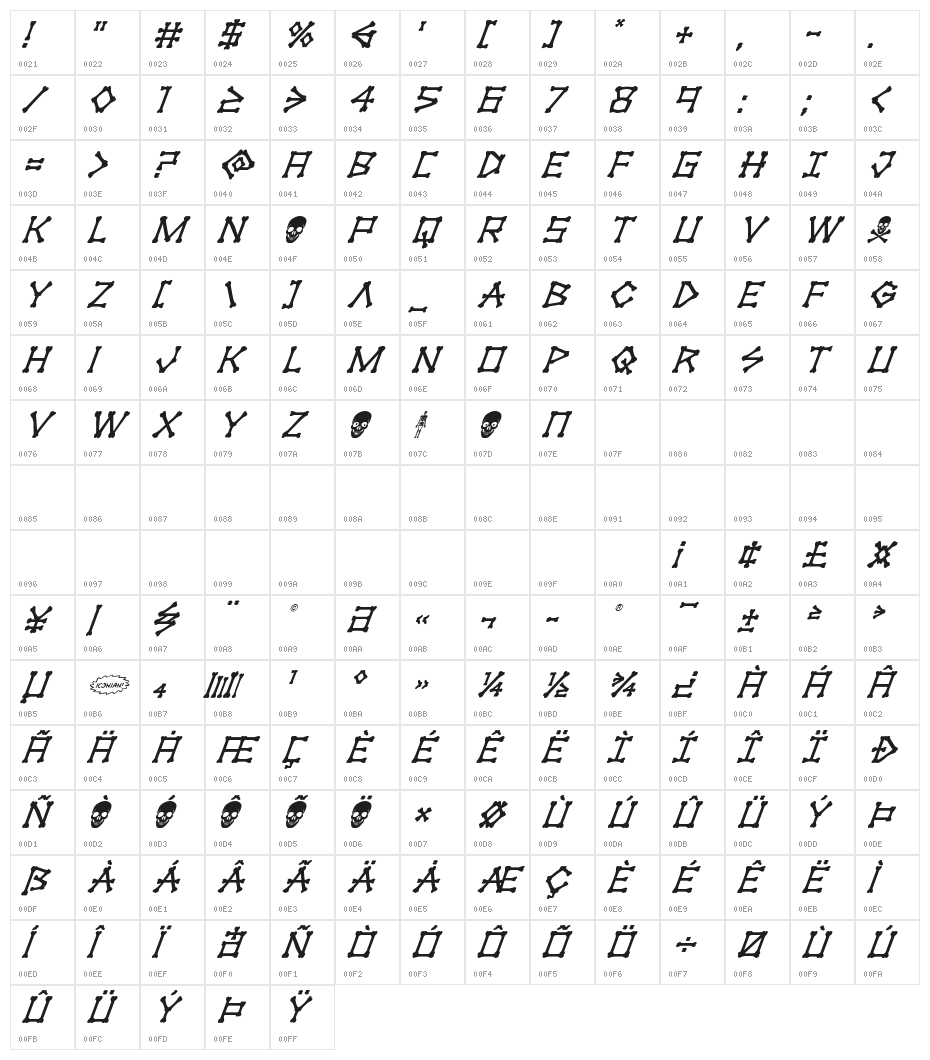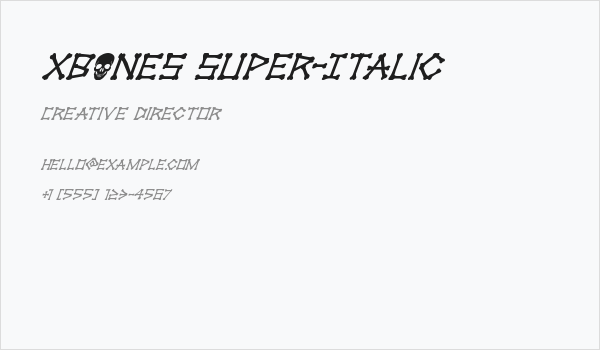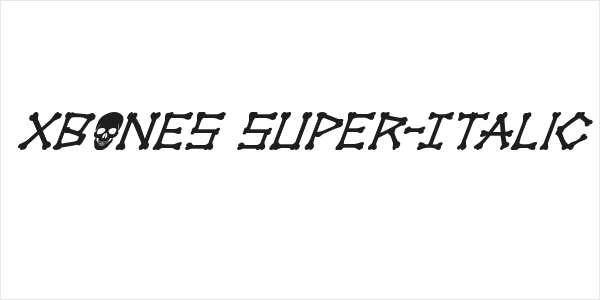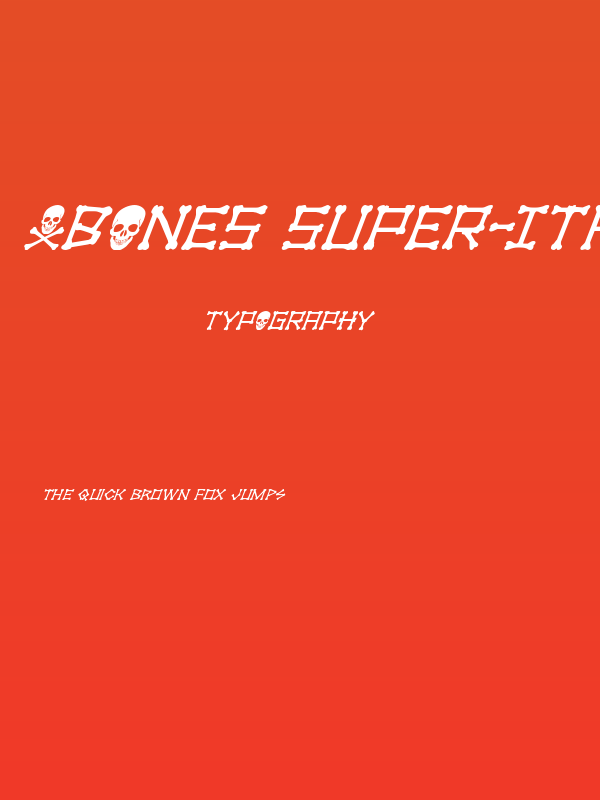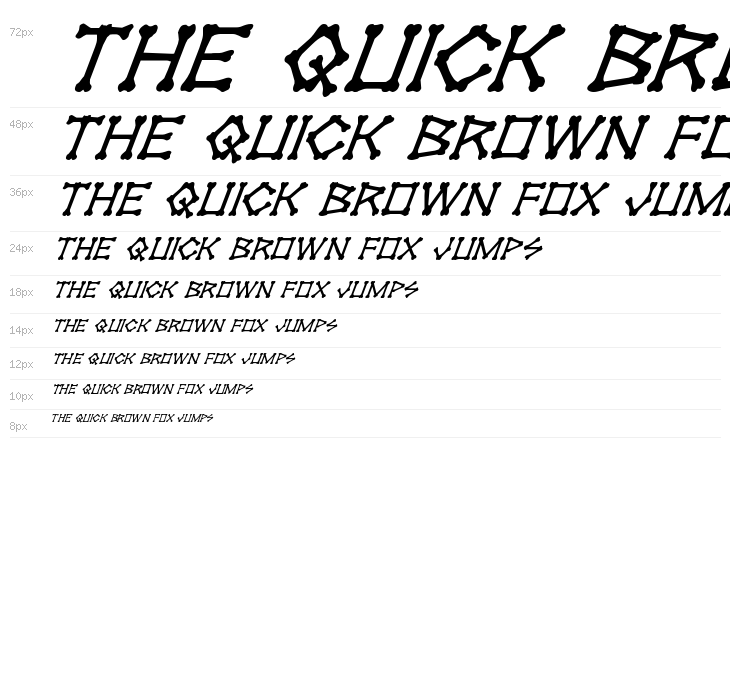
xBONES Super-Italic Font
xBONES Super-Italic Description
This font features a unique and edgy design, with characters resembling bones or skeletal structures. The letters are angular and sharp, giving off a gothic and rebellious vibe. The inclusion of skull motifs within the character set enhances its thematic consistency, making it ideal for projects that require a bold and unconventional aesthetic. The font maintains a consistent stroke width, contributing to its cohesive appearance. Its distinct style is suitable for creative and thematic uses, particularly in designs that aim to stand out with a daring and adventurous look.
| Overall Style | Gothic, Edgy, Rebellious |
| Use Case | Logos, Posters, Thematic Designs |
| Proposed Projects | Ideal for Halloween-themed designs, rock band logos, edgy apparel branding, and horror movie posters. |